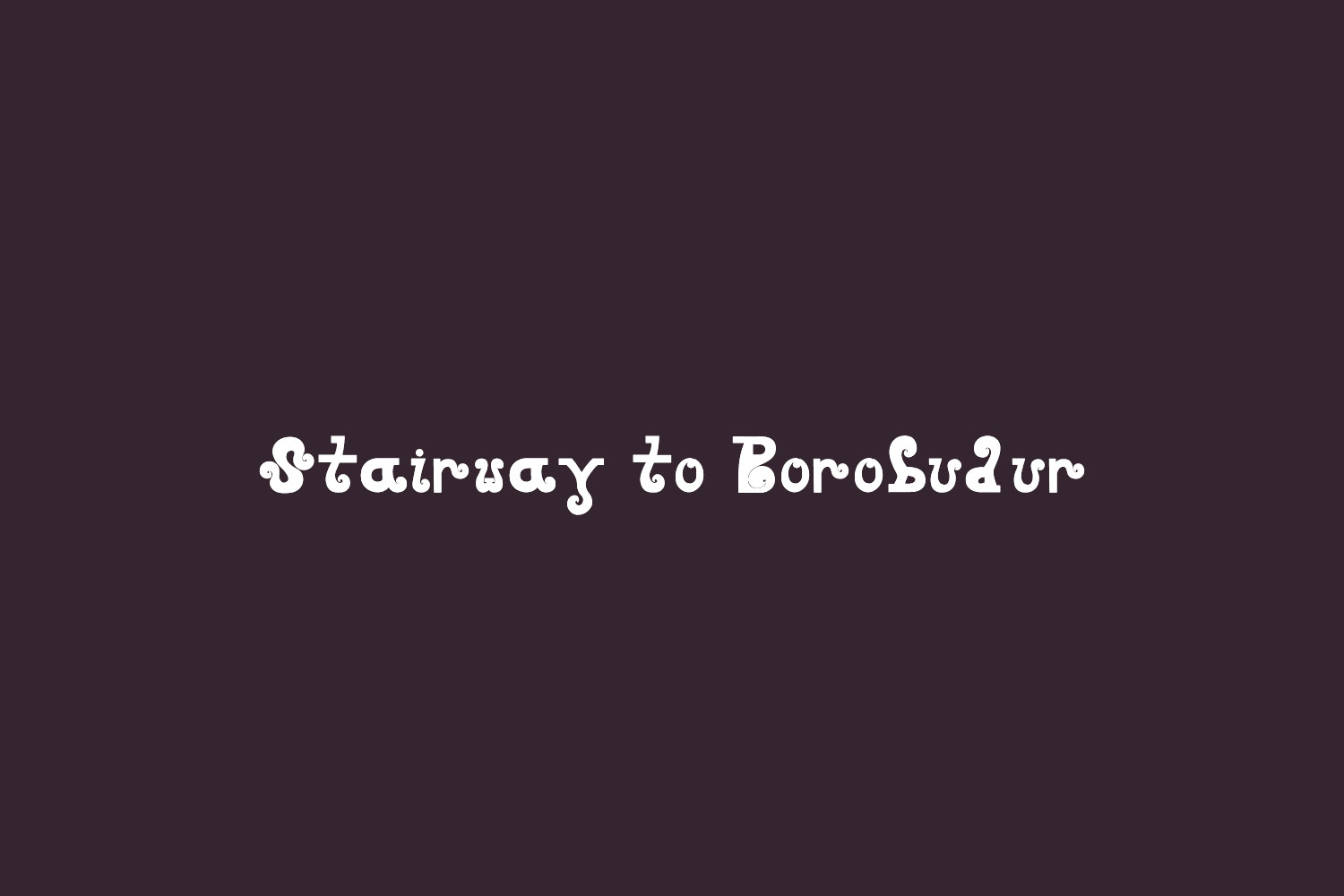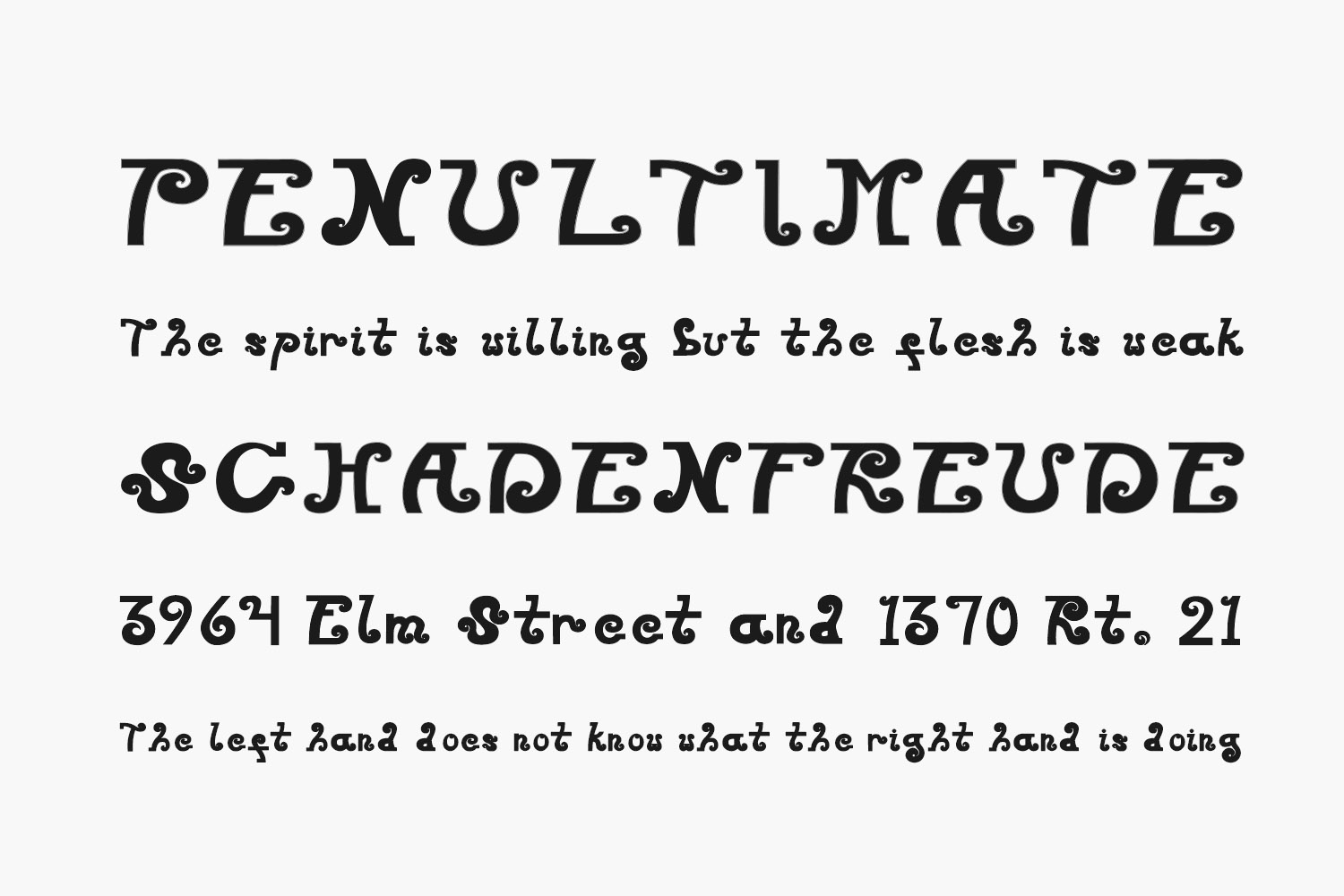
Stairway to Borobudur Free Font is inspired by the Borobudur Temple from Indonesia. It has existed since 825 AD and is the biggest Buddhist temple in the world. This font was designed by Laura Liem and is free for personal use only.
Stairway to Borobudur Regular The quick brown fox jumps over the lazy dog